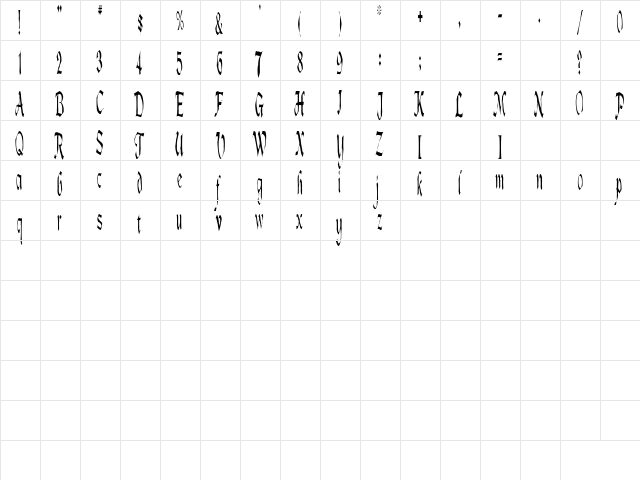
Lotharus Regular
Design Context for Lotharus Typeface
Lotharus is a composed and adaptable typeface that performs quietly and consistently across a wide range of design contexts.